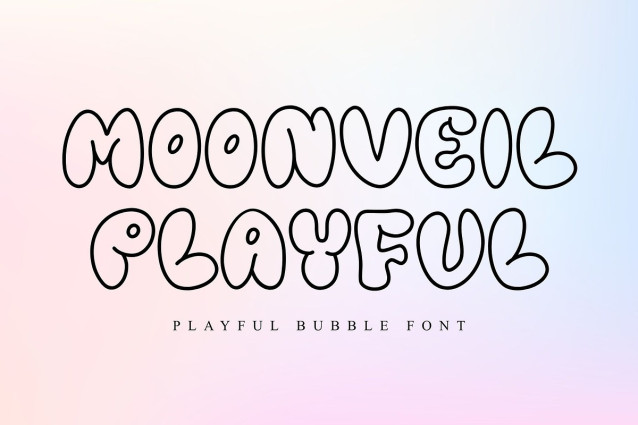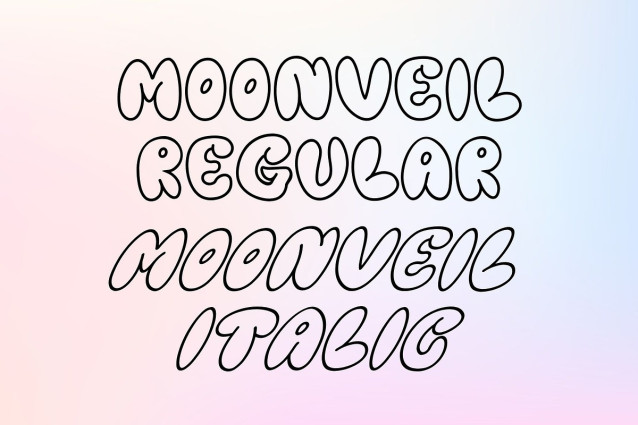
Moonveil Playful Font
Moonveil Playful Font is a cute and charming bubble-style font with a soft, rounded look and a strong playful personality. Its smooth curves and hand-drawn feel create a warm, friendly, and slightly dreamy vibe—perfect for designs that need to stand out while staying fun and approachable.
This font works beautifully for lo-fi visuals, children’s designs, creative branding, posters, and YouTube thumbnails. The clean outline keeps it highly readable, while its unique shapes add a distinctive and eye-catching touch.